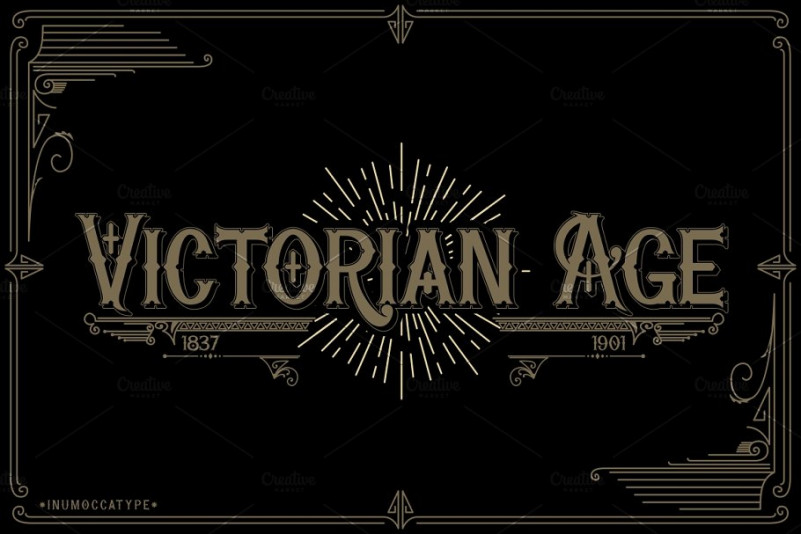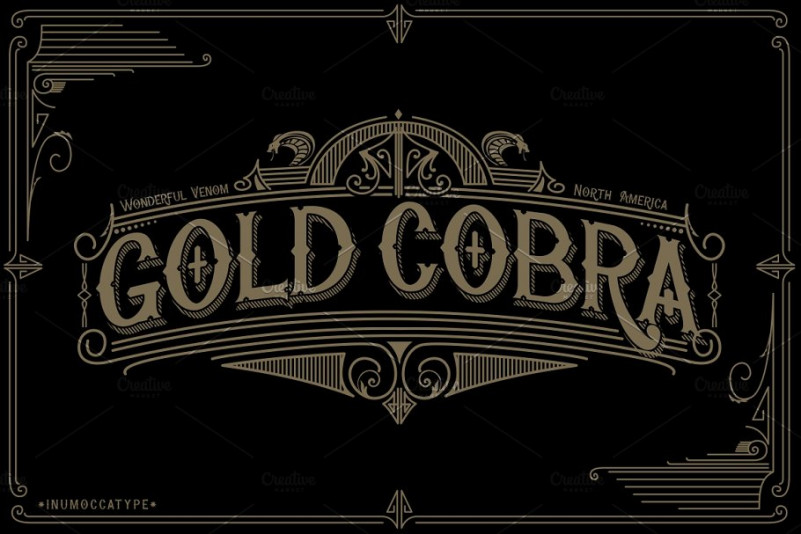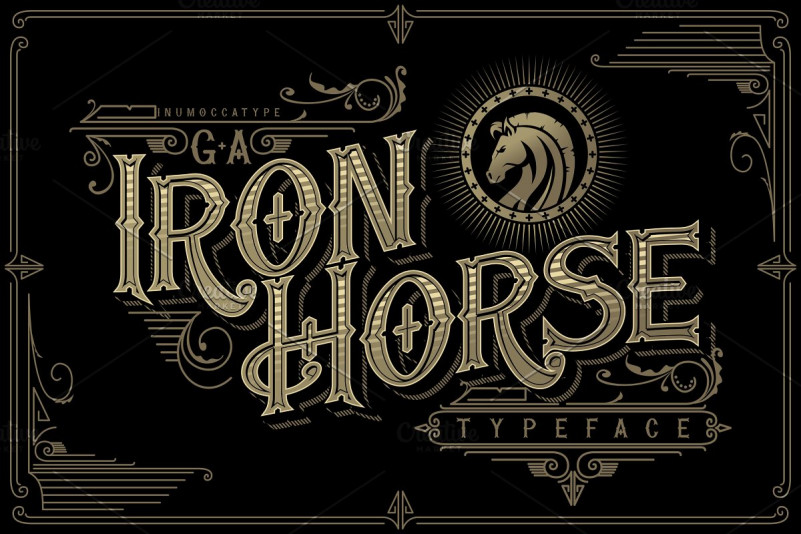
G.A Iron Horse Font
G.A Iron Horse inspired from Victorian age, take a culture of fashions, politic and art its really great font for your brand, company, label, clothing company, vintage or classic stuff, etc must have skill for make be better, pimp your letter, logos